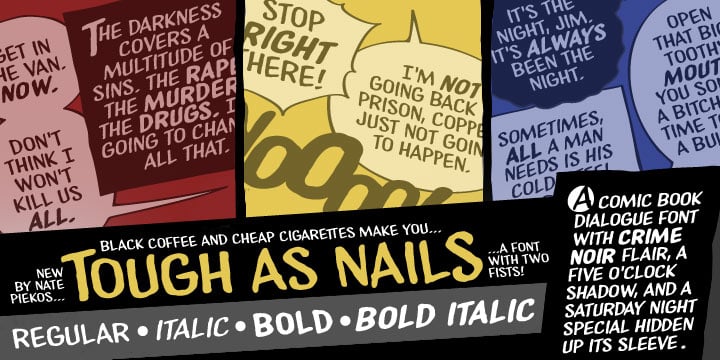
The Tough As Nails BB Font Free Download is ideal for comic books, bold posters, gritty branding, and noir-themed graphics, delivering a rugged, hand-drawn style.
This font is exciting because its pulp comic-inspired design, with a rough, organic texture and autoligatures, adds a bold, dynamic edge to any project.
The Tough As Nails BB family includes Regular, Bold, Italic, and Bold Italic styles, offering versatility for creative designs.
Unleash bold creativity with the Tough As Nails BB Font Free Download, a pulp comic book typeface designed by Nate Piekos and published by Blambot. Known for its gritty, hand-drawn aesthetic, Tough As Nails BB features a 5 o’clock shadow vibe, perfect for crafting impactful headlines or edgy logos. The OpenType version includes autoligatures to swap duplicate letters for a natural, organic look, ideal for comics, posters, or noir-inspired branding. With 335 glyphs, it supports multiple formats (OTF, TTF, WOFF) for seamless use across print and digital platforms. As 2025 design trends embrace bold, expressive typography, downloading Tough As Nails BB Font Free Download keeps your work tough and stylish. Test it today to explore its rugged charm, and consider purchasing for commercial use to fully leverage its dynamic style.